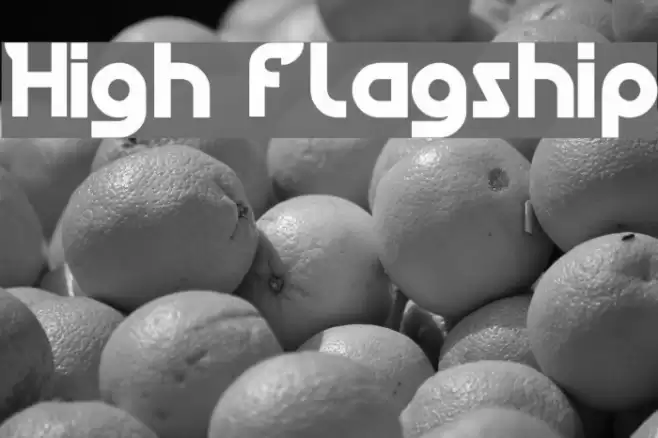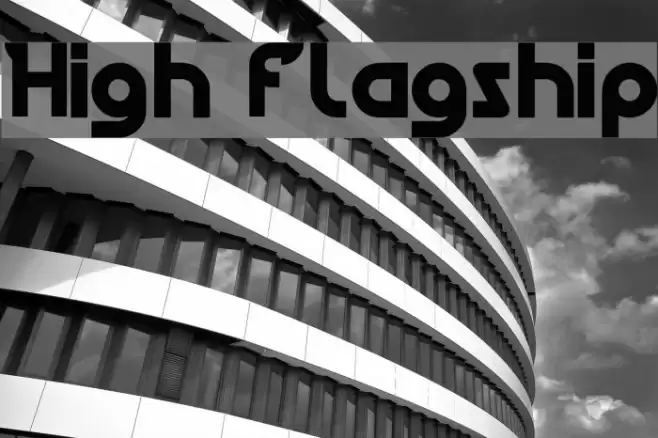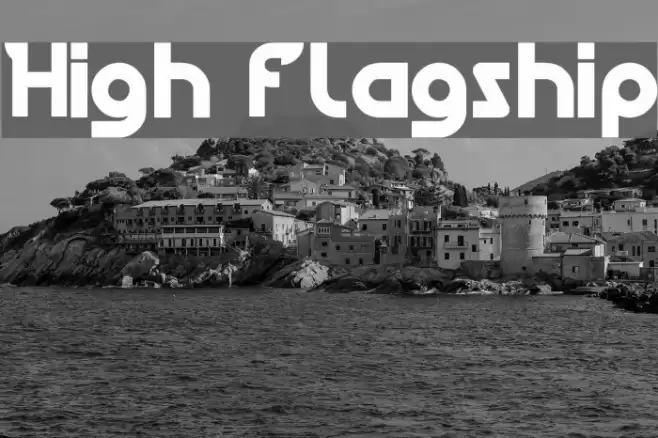
High Flagship Font
High Flagship Description
This font features a bold and geometric design with a modern flair. The uppercase letters are characterized by strong, angular lines and a consistent stroke width, giving them a robust and impactful appearance. The lowercase letters maintain a similar geometric style, with rounded edges that add a touch of softness to the overall design. The numerals are equally bold and maintain the geometric consistency seen in the alphabet. Special characters are designed to match the boldness and geometric nature of the letters and numbers, ensuring a cohesive look across all glyphs. This font is well-suited for projects that require a strong visual presence and a modern aesthetic.
A bold, geometric font with a modern and impactful design from Uncategorized fonts.
- Proposed Projects: Ideal for branding, headlines, posters, and digital media where a strong visual impact is desired.